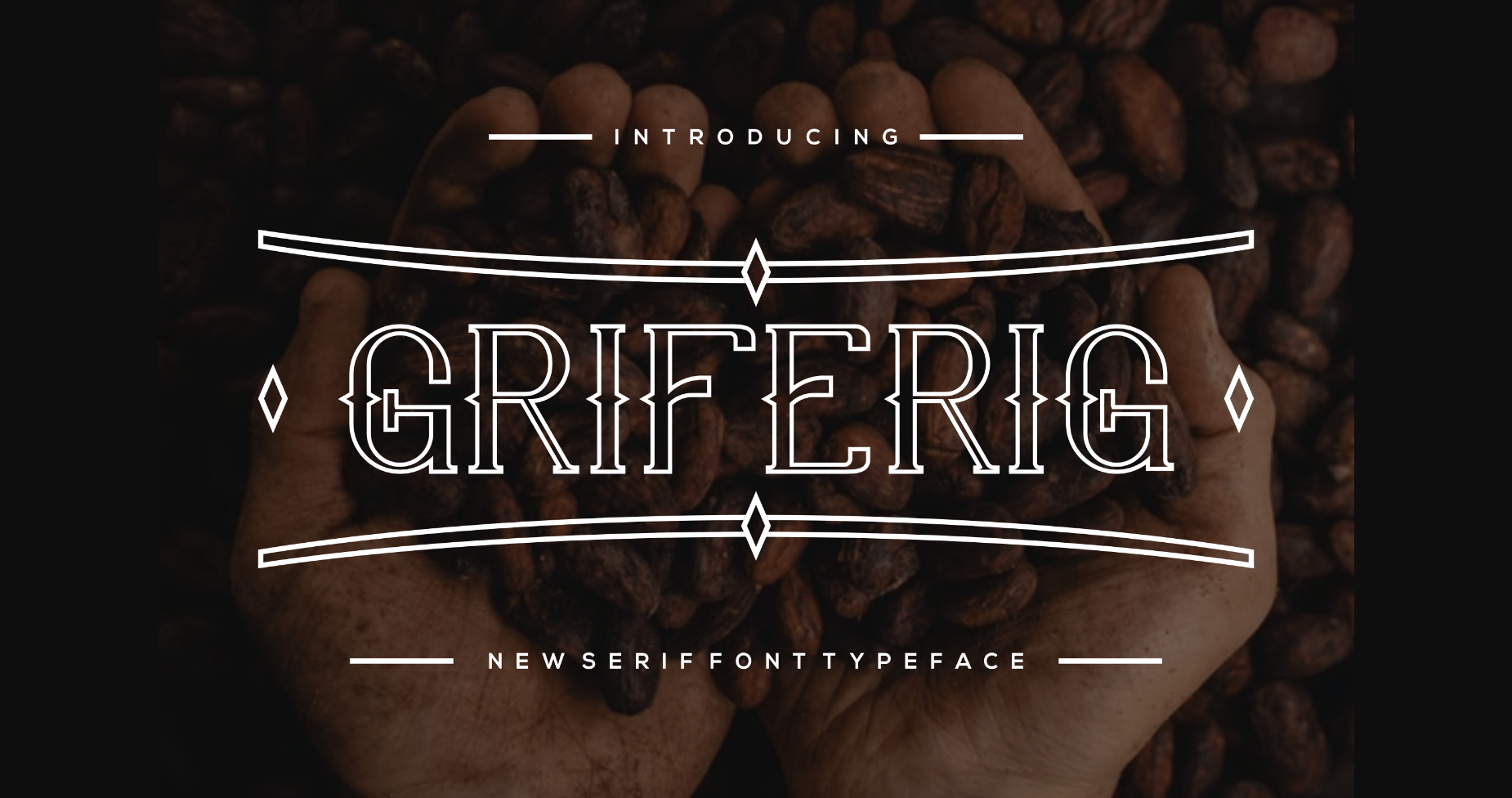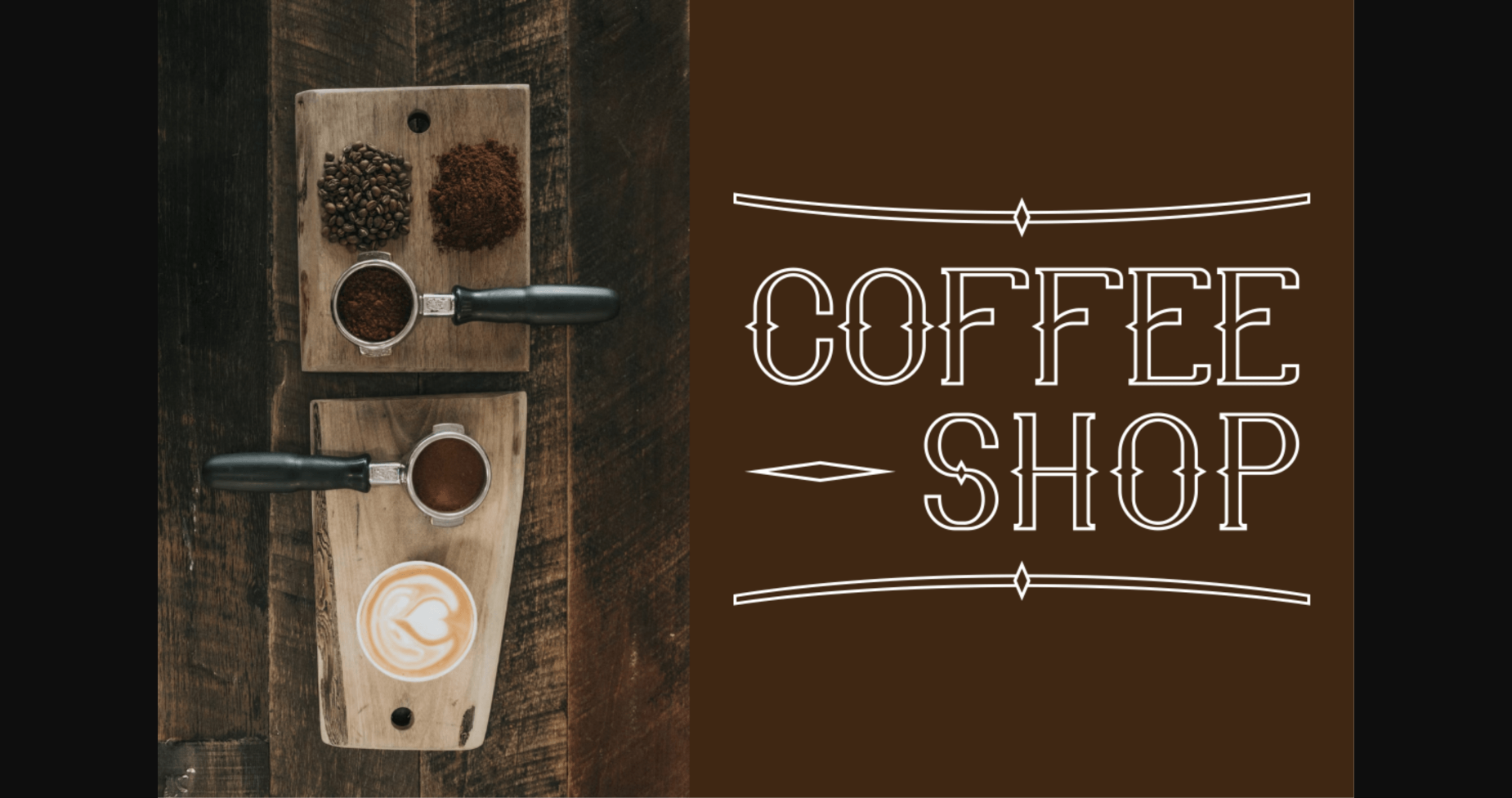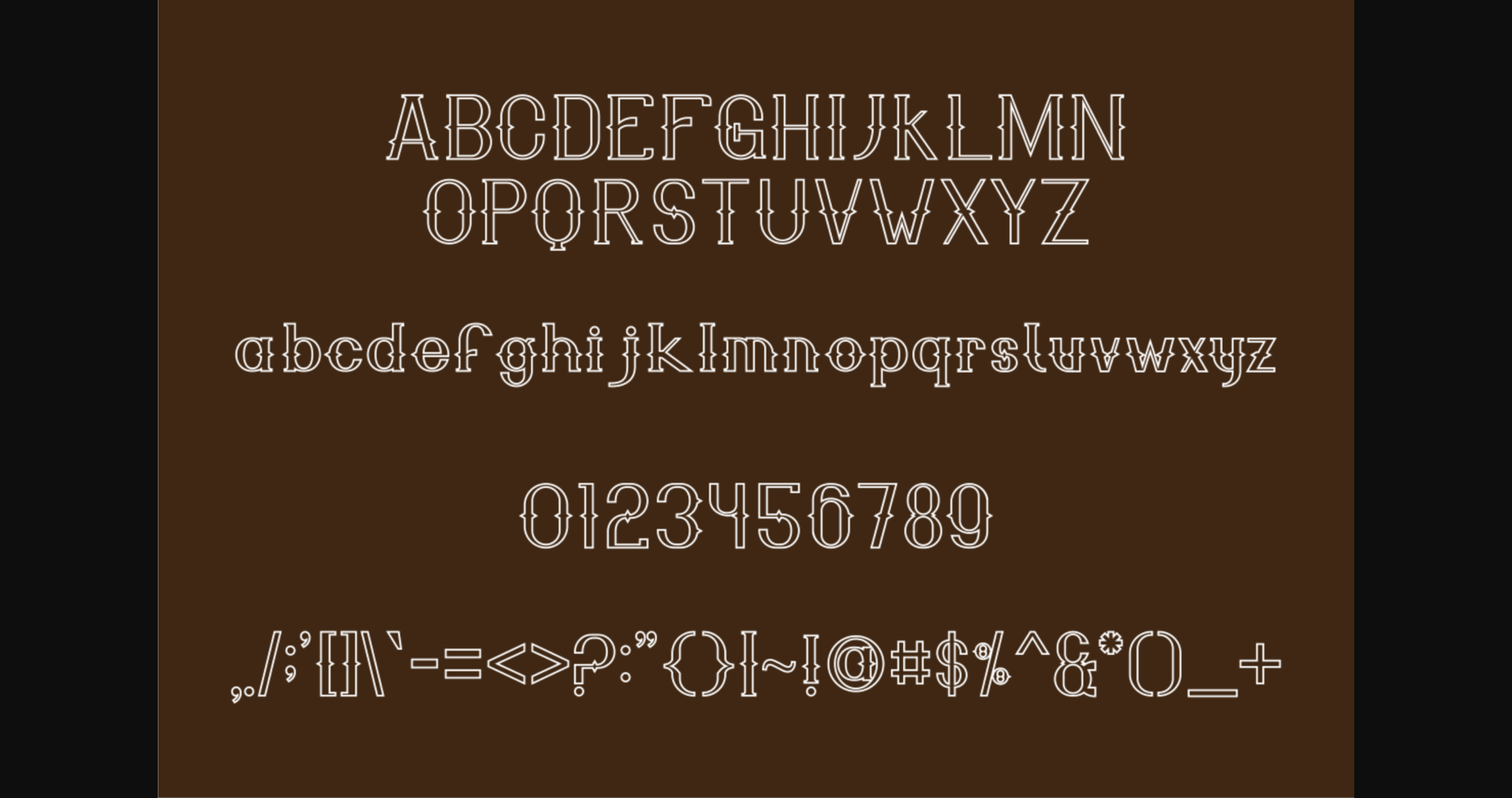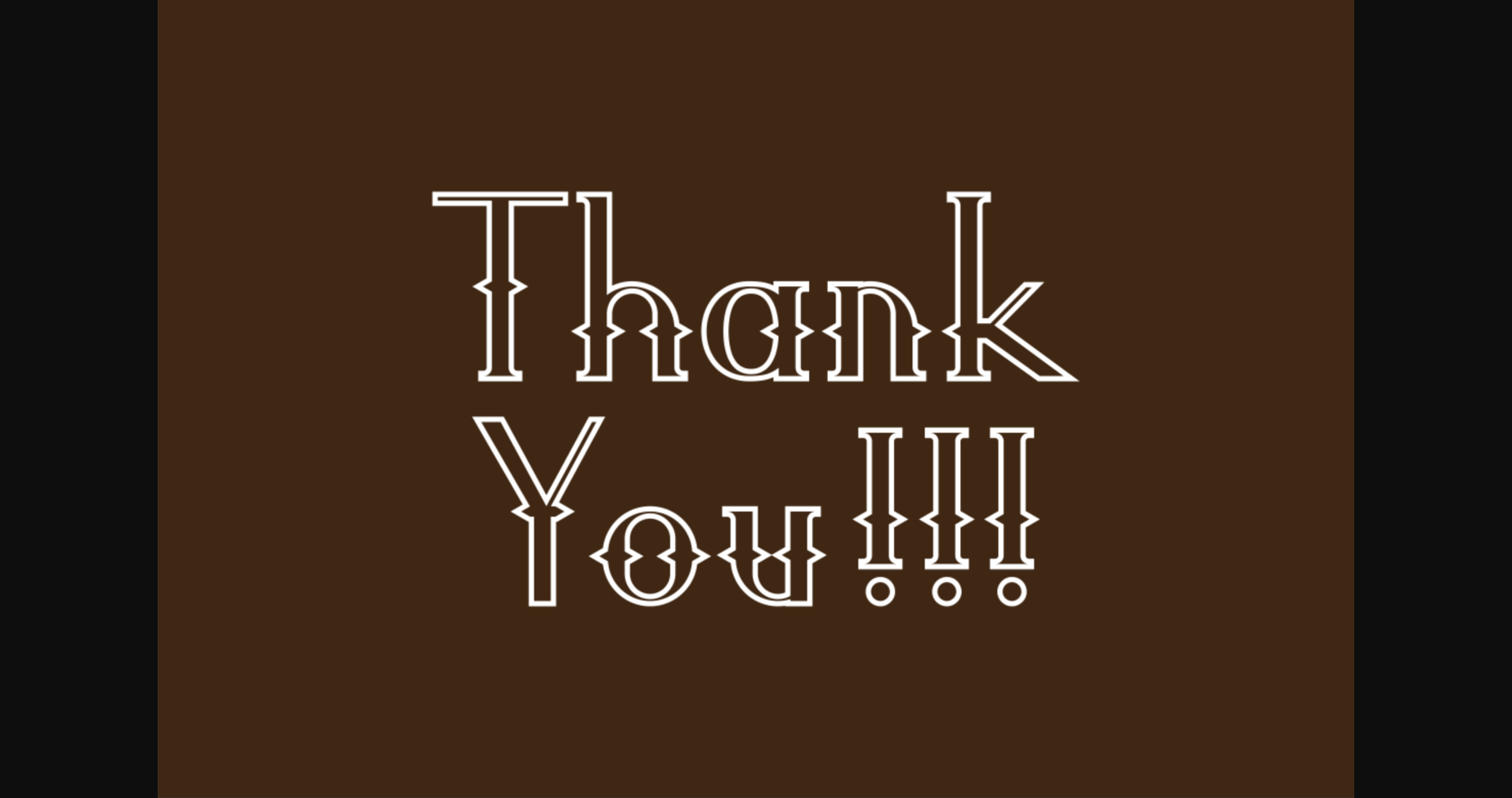
HomeSans Serif FontsGriferig Font Sans Serif Fonts Griferig Font FacebookTwitterPinterestWhatsApp 1 of 6 ... Griferig Font Poster 2... Griferig Font Poster 3... Griferig Font Poster 4... Griferig Font Poster 5... Griferig Font Poster 6... About Griferig Font Griferig is a unique and elegant serif font. Add it confidently to your projects and you will love the results! DOWNLOAD NOW People also explored Asmiyati Font Snowman Font Qukiha Font Dream Orphanage Barbeque Font Brick Font Aqua Bella Canvas 3001 T Shirt Mockup Mbuhya Font One Trick Pony 203 0 TagsGriferig Font Previous articleEuphoria FontNext articleBold Bungek Font LEAVE A REPLY Cancel reply Comment: Please enter your comment! Name:* Please enter your name here Email:* You have entered an incorrect email address! Please enter your email address here Website: Save my name, email, and website in this browser for the next time I comment. Personal Use Free The Winter Personal Use Free Read more about this font Alnair Star Personal Use Free Read more about this font Bridgetown Font Personal Use Free Read more about this font DangeRNighT Font Personal Use Free Read more about this font BLOG Exploring Font Trends Shaping Communication in the Digital Era Fonts, like all design elements, are subject to trends. They play a crucial role in communicating a brand's personality,... Free vs Paid Fonts: Why Investing in Premium Fonts Is Worth It To increase your work productivity, choose the most readable fonts. The 10 Best Handwriting Fonts to Add Personality to Your Designs